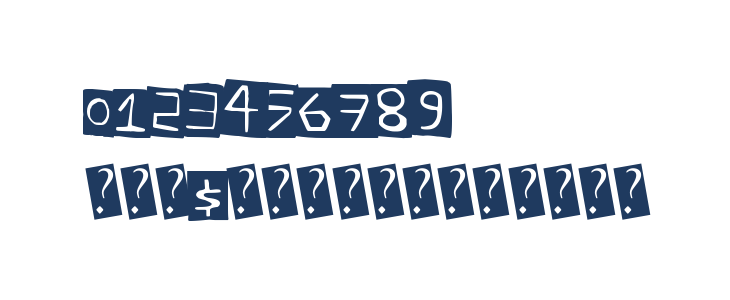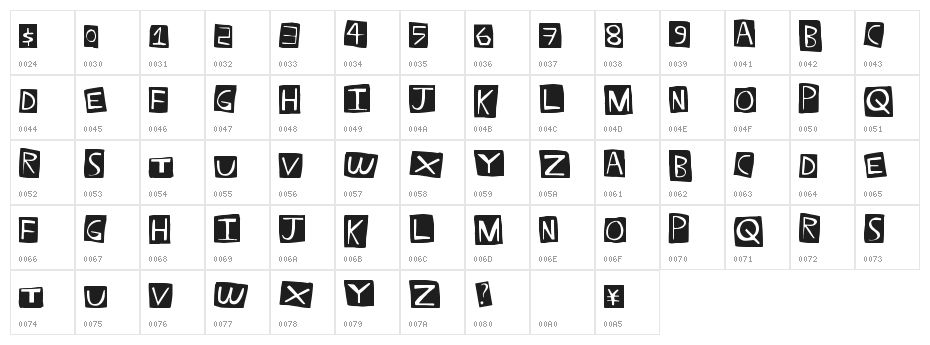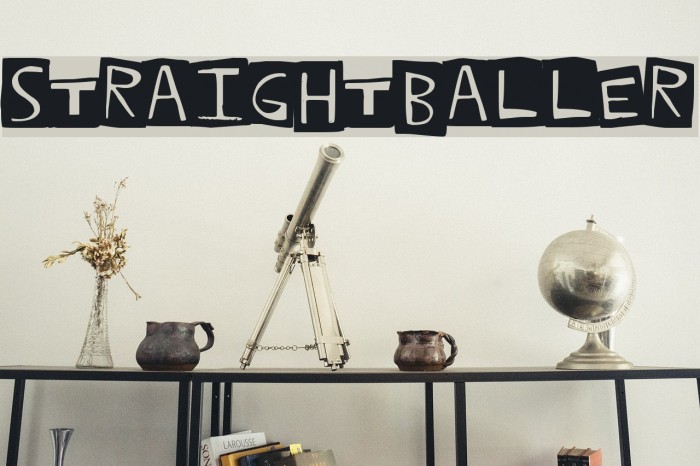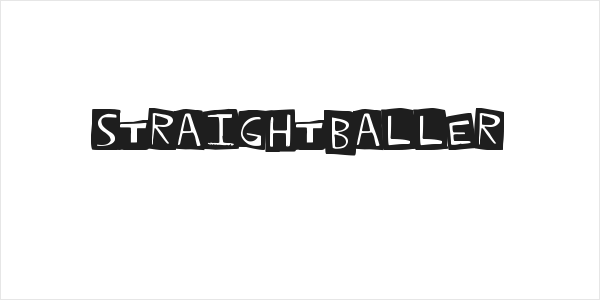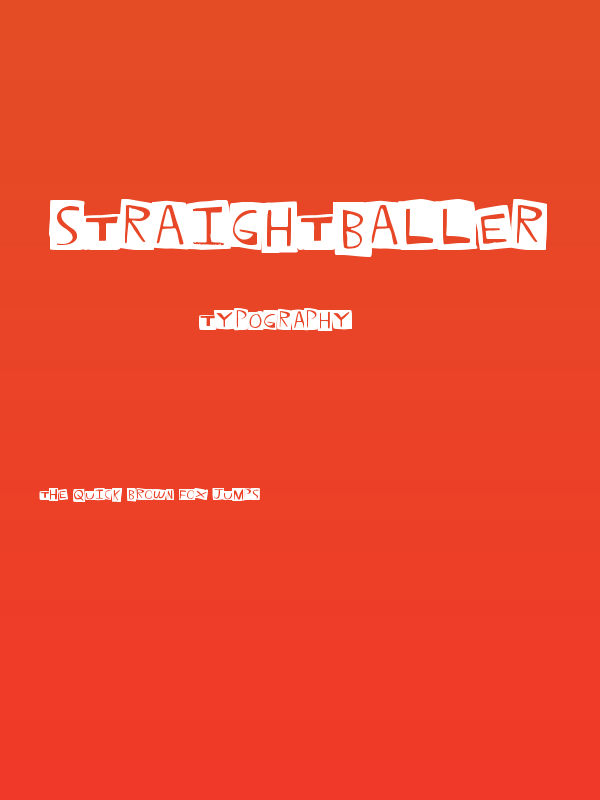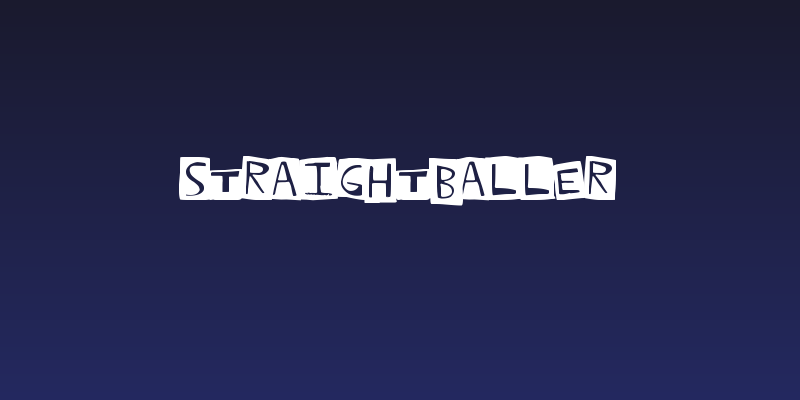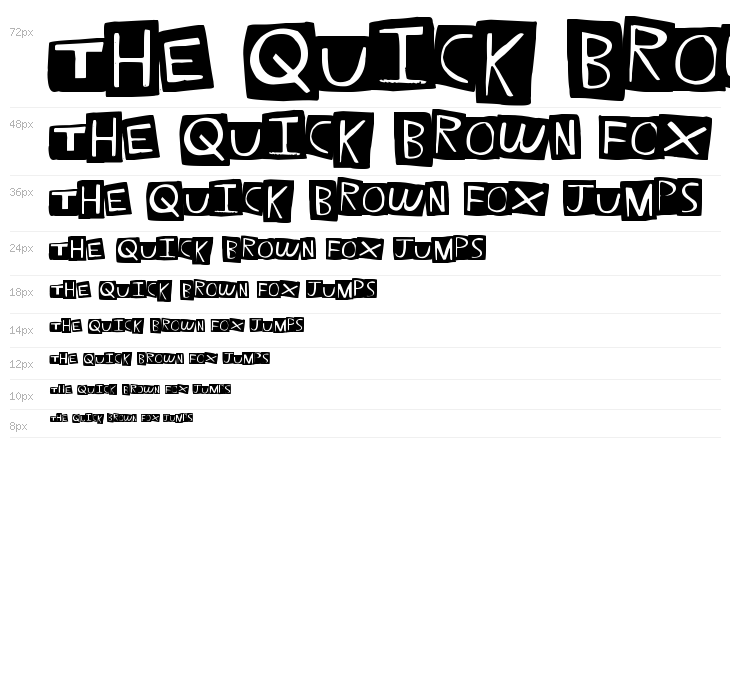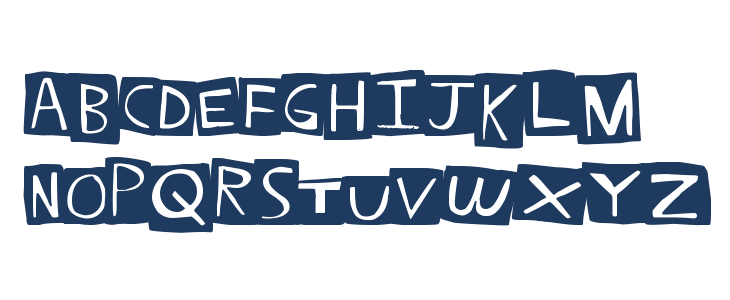
StraightBaller Font
| Gesamtstil | Playful, Hand-drawn |
| Vorgeschlagene Projekte | Ideal for children's books, playful posters, creative branding, and informal invitations. |